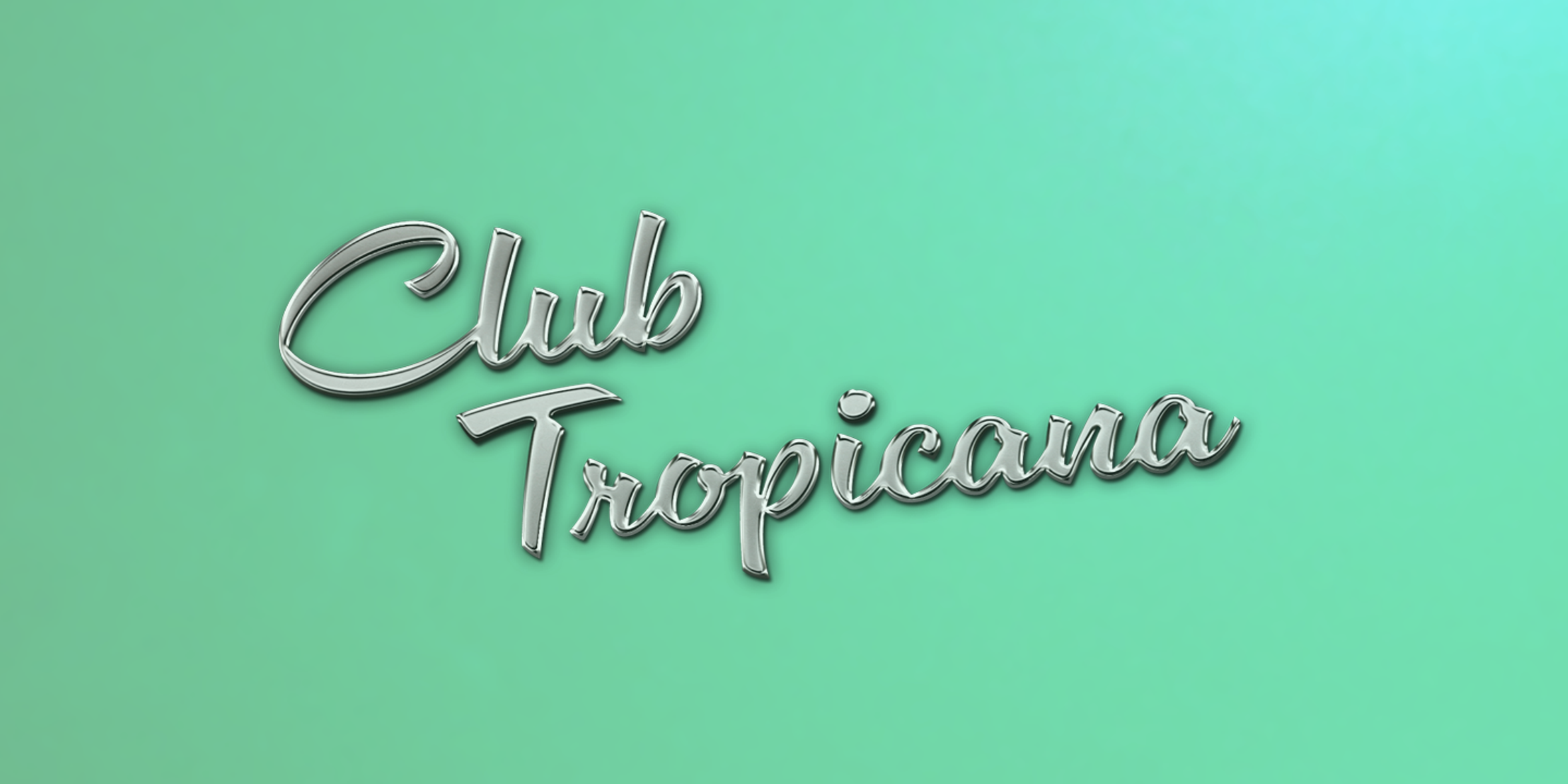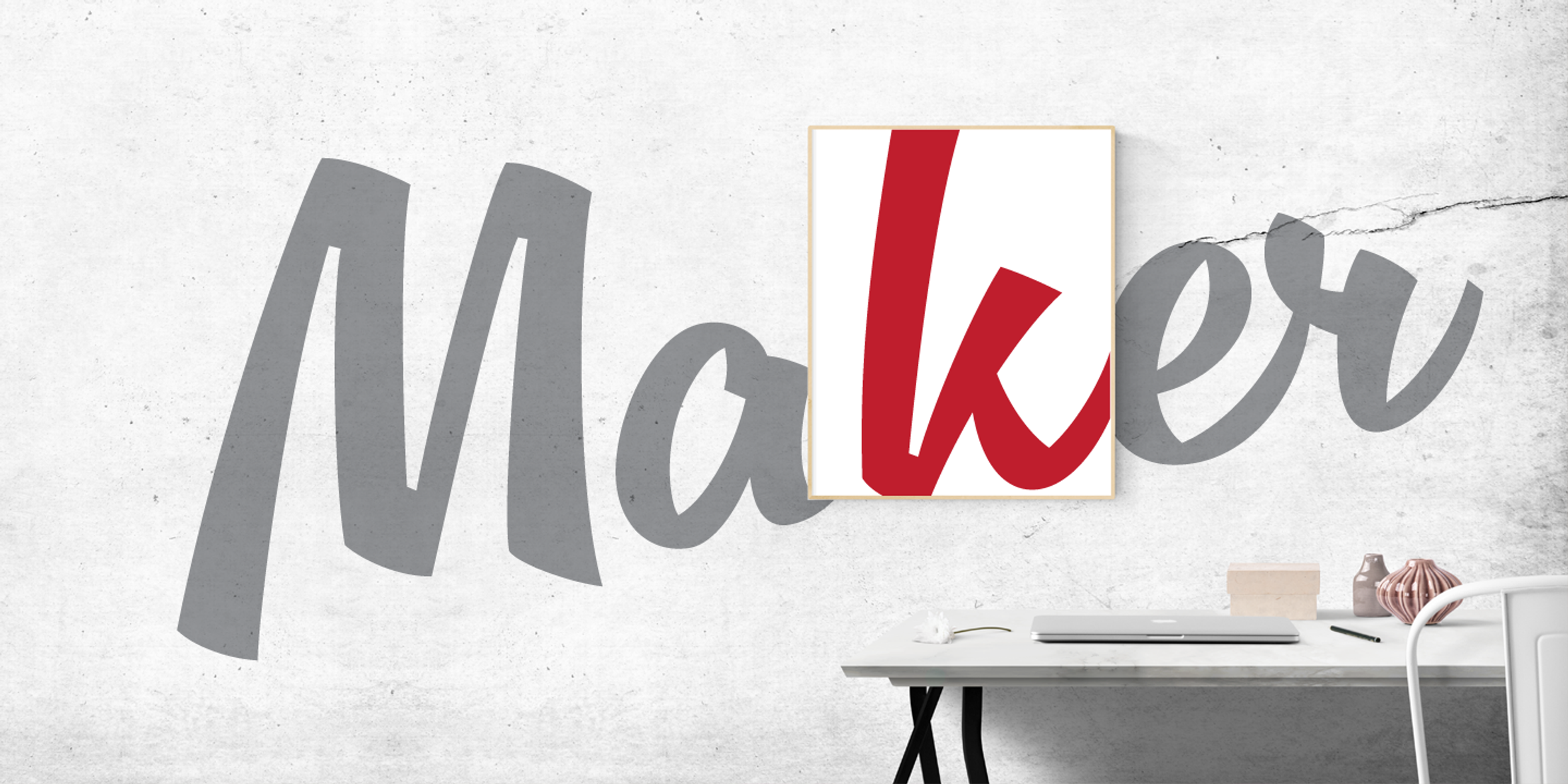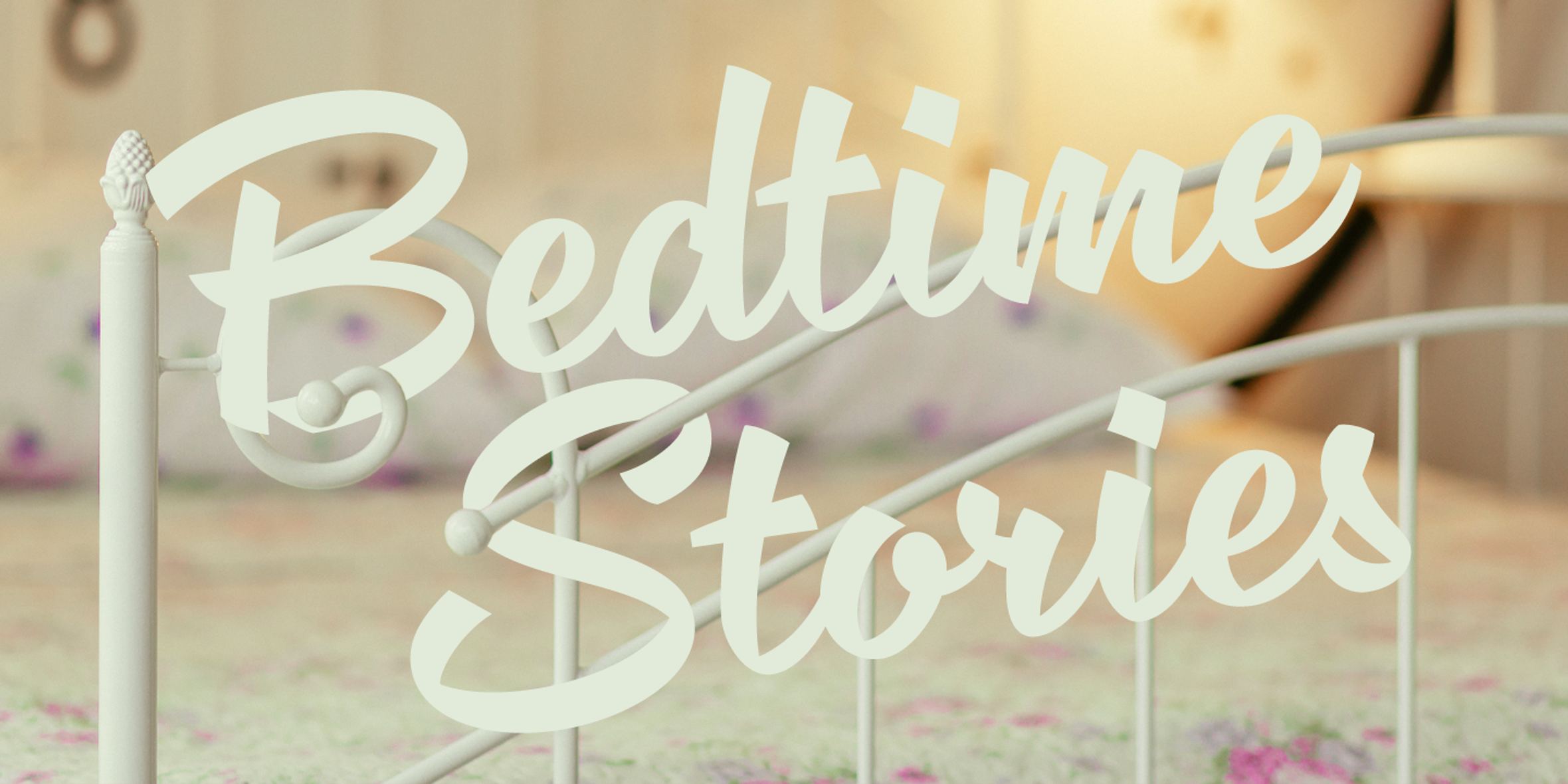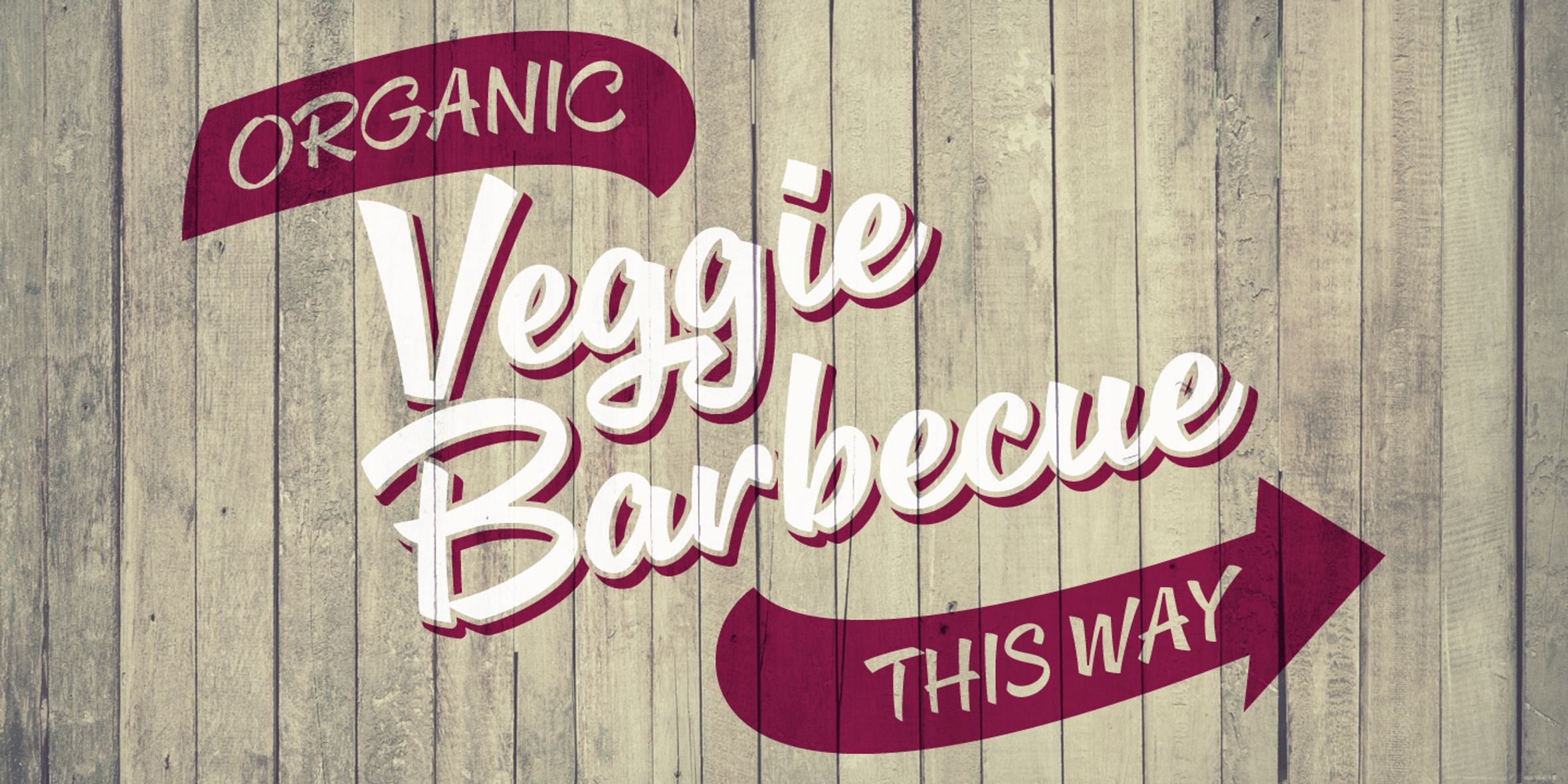
Delfino Script Font
Delfino Script
Delfino Script is a cool, connecting script that, with context, can appear retro or modern. Twin to Delfina, the only difference being squared tittles and punctuation, the shapes almost look like strips of tape, folding and flowing. However, this script is not created by any pen — its forms are built, not painted. Because of this, we could add extra sparkle to the text with structural details like ink traps. Delfino will be at home on screen or in print anywhere you want sparkle in your script.
- Common Ligatures
- Ordinal Numerals
- Stylistic Alternates